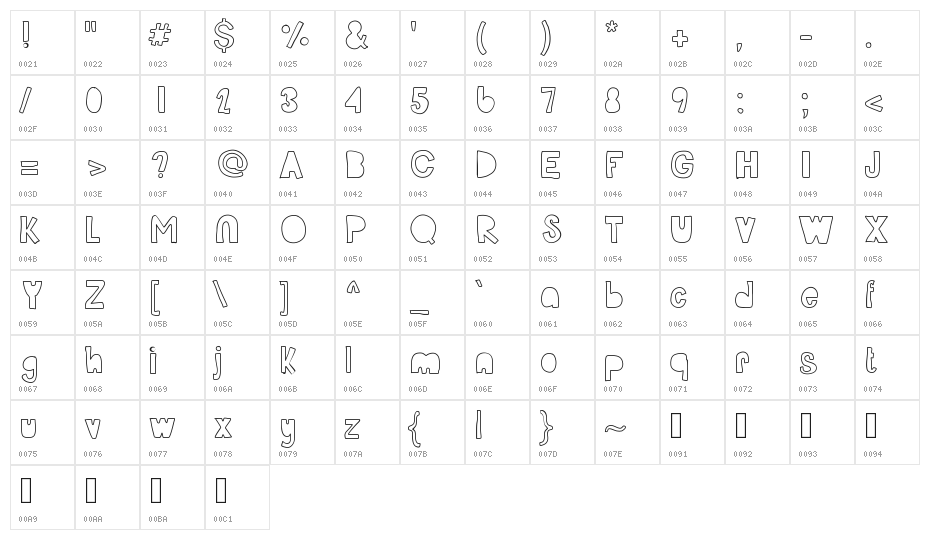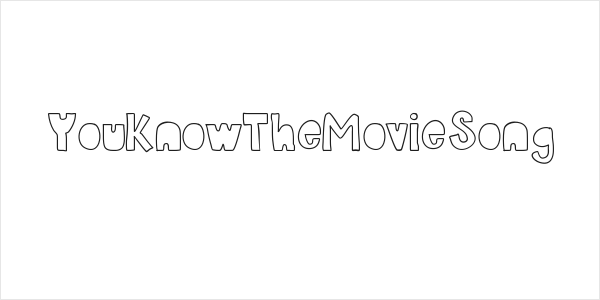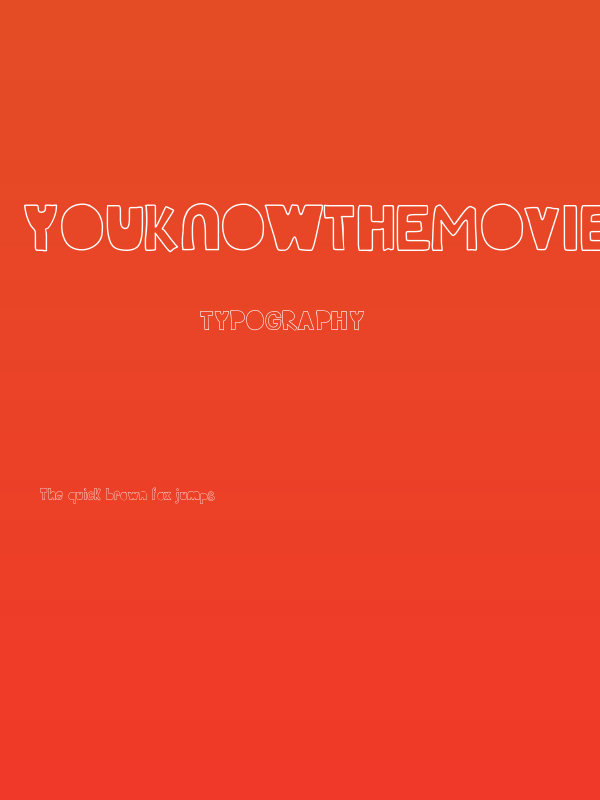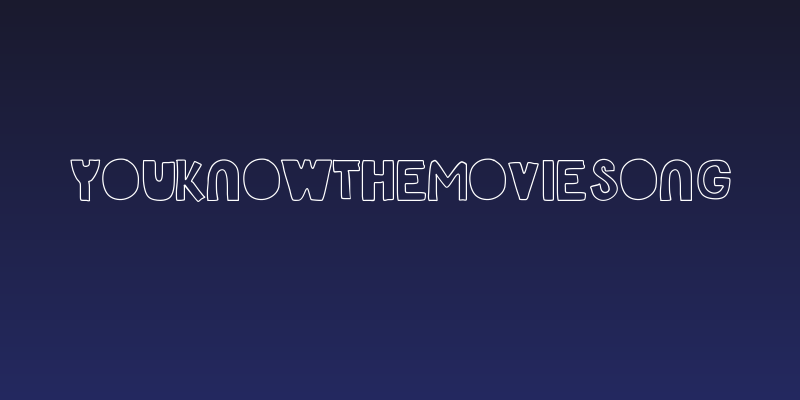
YouKnowTheMovieSong Font
YouKnowTheMovieSong Description
This playful and bold font features a unique outline style that gives it a cartoonish and whimsical appearance. The characters are rounded and slightly irregular, adding a sense of fun and creativity. The uppercase and lowercase letters maintain a consistent style, with the uppercase being slightly more angular. Numbers and special characters follow the same playful design, making the font versatile for various creative projects. The overall look is eye-catching and suitable for designs that require a lively and informal touch.
| Overall Style | Playful, Whimsical, Cartoonish |
| Proposed Projects | Ideal for children's books, comic strips, playful branding, and party invitations. |